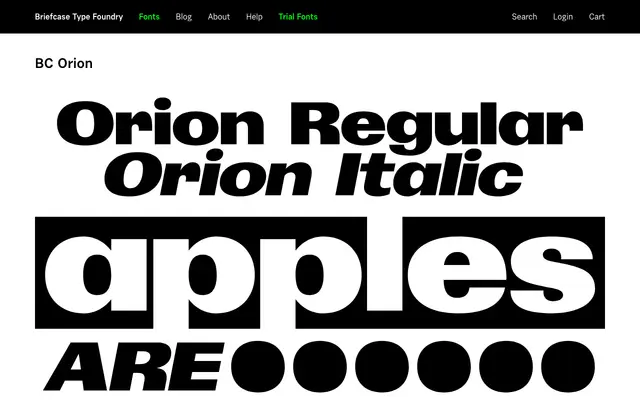
A sans-serif typeface from Briefcase Type Foundry with minimal information available from the page listing.
BC Orion appears in Briefcase Type Foundry's catalogue alongside BC Vega, suggesting a family of contemporary sans-serif releases under the BC naming system. The page content provided is sparse, offering no detail on weights, language support or designer. Further detail would be needed to assess the typeface's full scope and character.
The name and foundry context suggest a geometric or contemporary sans-serif; insufficient page content to confirm subcategory with certainty, but Briefcase Type's naming conventions and the brief listing alongside BC Vega point toward a clean geometric sans.